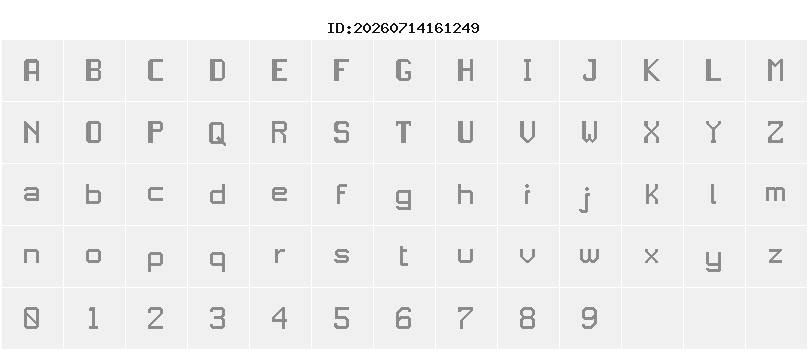
JD LED7 Preview
• Font Name: JD LED7
• Font ID: FontStruct JD LED7
• Full Font Name: JD LED7 Regular
• PostScript Name: JD-LED7
• Character Count: 198
• Designer: Jecko Development
• Description: ‚ÄúJD LED7‚Äù was built with FontStruct
About JD LED7.ttf
JD LED7.ttf is a modern, elegant sans-serif font designed for ultimate readability and visual harmony. Perfect for branding, headlines, web design, and print materials.